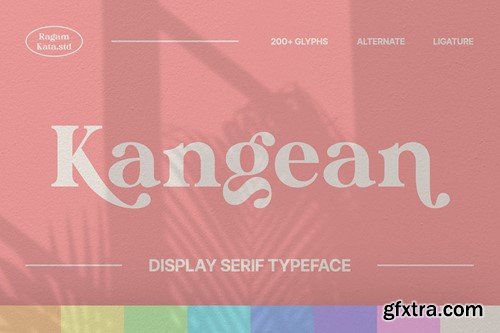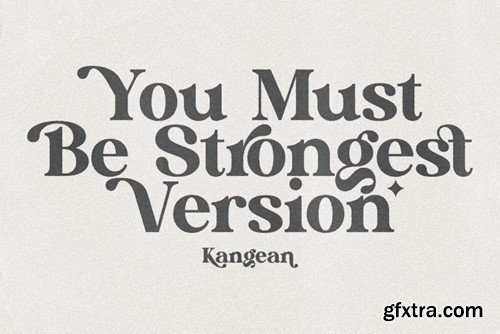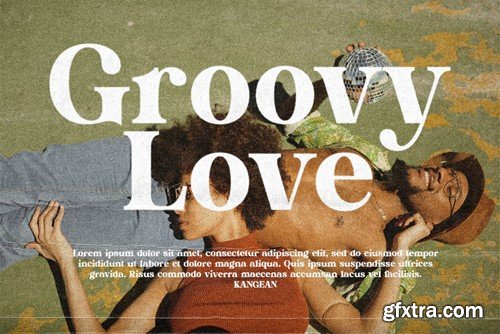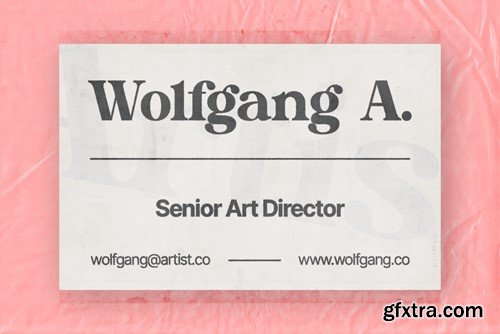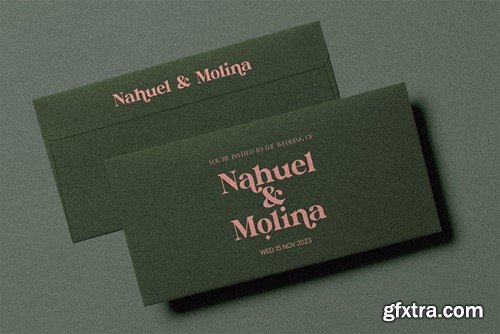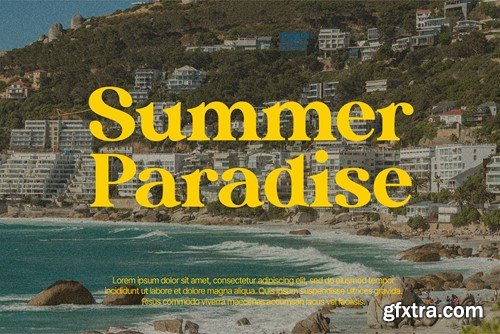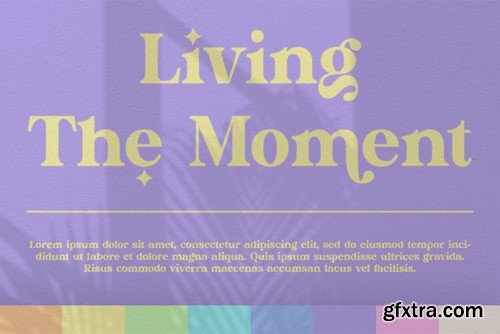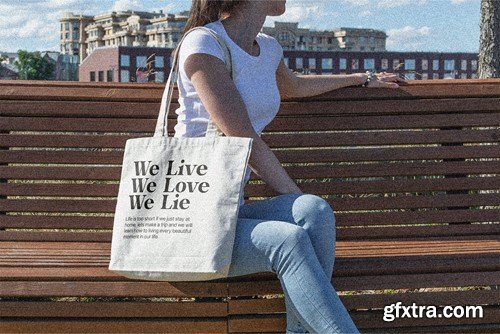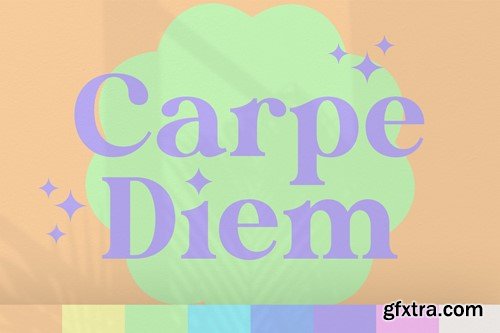
康格安 - 深刻 serif 字体 AZQCTVT
Introducing "Kangean," a cutting-edge font designed for the modern era. This retro serif display font brings a touch of nostalgia with a contemporary twist. Immerse your designs in a unique blend of classic and modern aesthetics, as Kangean offers a diverse range of alternates and ligatures that add character and charm to your projects. Elevate your creative endeavors with this stylish typeface, perfectly suited for those seeking a trendy and versatile font solution. Capture the essence of retro sophistication and make a statement with Kangean. Features : Please contact us if you have any questions. Enjoy crafting and thanks for supporting us! Thank you.